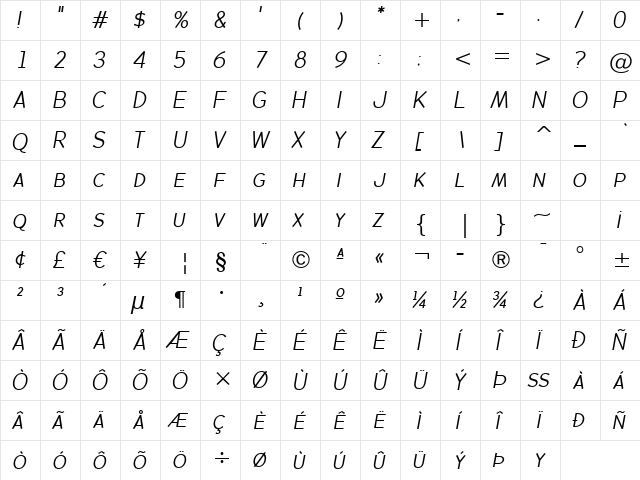
BacktalkSans BTN ShortCap Oblique
Design Context for BacktalkSans BTN ShortCap Typeface
BacktalkSans BTN ShortCap is a composed and adaptable typeface that performs quietly and consistently across a wide range of design contexts. The slanted form adds forward momentum and visual energy.
Pro Tip: Try BacktalkSans BTN ShortCap for annotation and caption copy alongside an upright companion — the contrast in angle creates a dynamic but ordered typographic system.